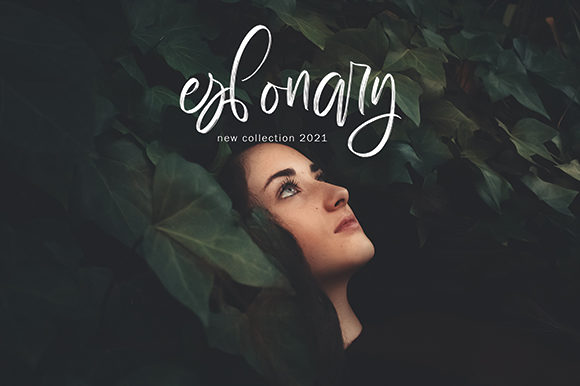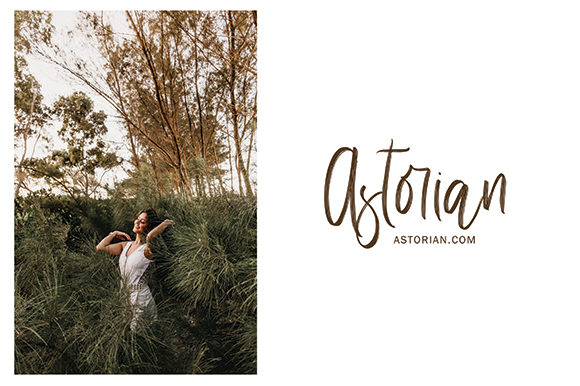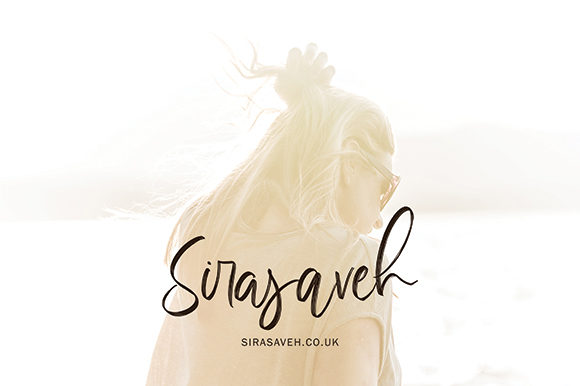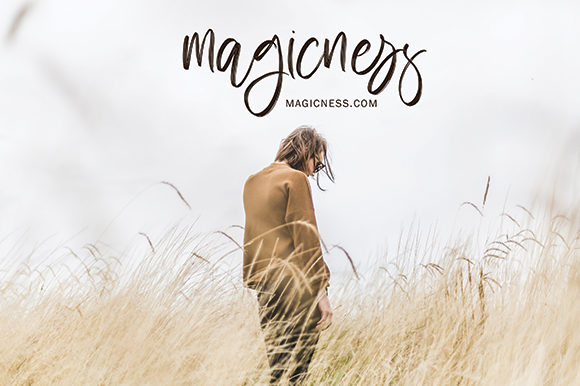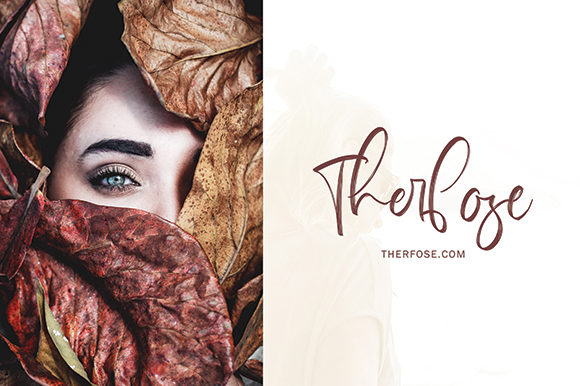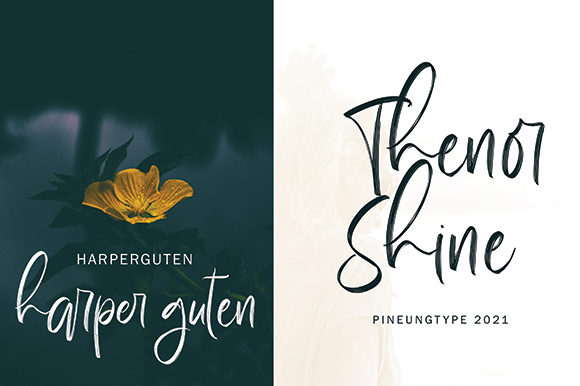
Fahrimes Font: Elevate Your Design with a Touch of Luxury
Are you on the hunt for a font that can instantly elevate your design projects and add a touch of sophistication? Look no further than Fahrimes Font, a beautiful light handwritten font that is sure to make a stunning impact. With its unique feel and luxurious vibe, Fahrimes is the perfect choice for designers and crafters looking to add a spark of elegance to their work.
The Beauty of Fahrimes Font
Fahrimes Font is a gorgeous light handwritten font that boasts a distinctive and eye-catching style. Its elegant, cursive lines and delicate flourishes make it perfect for a wide range of design projects, from wedding invitations and branding materials to packaging and digital media. Whether you’re looking to create a sophisticated logo, a beautiful social media graphic, or a stunning website, Fahrimes Font is sure to impress.
What Sets Fahrimes Apart
So, what sets Fahrimes Font apart from other fonts on the market? For starters, its unique feel and luxurious vibe make it a standout choice for designers looking to add a touch of elegance to their work. Additionally, Fahrimes is incredibly versatile, making it suitable for use in a wide range of design projects. Whether you’re working on a high-end branding campaign or a more playful design project, Fahrimes Font is sure to deliver.
Fahrimes Font is a dream come true for designers and crafters who are looking to add a touch of luxury to their work. With its beautiful, light handwritten style, Fahrimes is perfect for creating stunning design projects that are sure to impress. Whether you’re a professional designer or a crafty DIY enthusiast, Fahrimes Font is a great choice for anyone looking to elevate their design game.
How to Use Fahrimes Font
- Packaging design, including labels and product packaging
- Digital media, such as social media graphics and website headers
Why Choose Fahrimes Font?
So, why choose Fahrimes Font for your design projects? Here are just a few reasons:
- Unique feel: Fahrimes Font has a distinctive and eye-catching style that is sure to make your designs stand out.
- Luxurious vibe: With its elegant, cursive lines and delicate flourishes, Fahrimes Font adds a touch of sophistication to any design project.
- Versatility: Fahrimes Font is incredibly versatile, making it suitable for use in a wide range of design projects.
In conclusion, Fahrimes Font is a beautiful light handwritten font that is sure to elevate your design projects and add a touch of luxury. With its unique feel, luxurious vibe, and versatility, Fahrimes is the perfect choice for designers and crafters looking to create stunning designs. Whether you’re working on a high-end branding campaign or a more playful design project, Fahrimes Font is sure to deliver. So why wait? Download Fahrimes Font today and start creating stunning designs that are sure to impress!